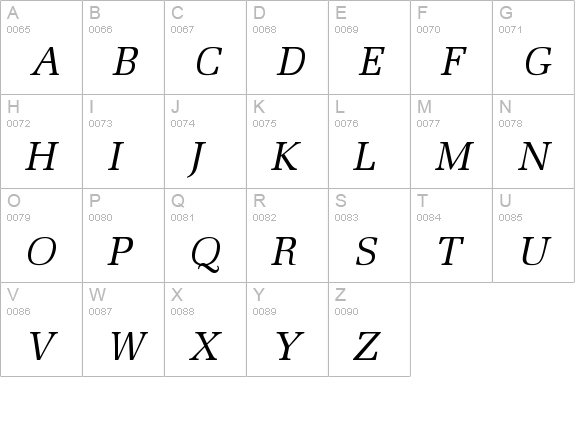
Melior Italic Font Details
Melior Italic is a distinctive, italic variant in the Melior typeface family \xE2\x80\x94 well suited to design and typography projects.
Melior Italic font exudes elegance and sophistication with its sleek, slanted design. The graceful curves and precise angles of this typeface make it a perfect choice for adding a touch of sophistication to any project. Whether you're designing a wedding invitation, creating a stylish logo, or crafting a professional document, Melior Italic font is sure to elevate your work to the next level. What's even better is that Melior Italic font is completely free to download at FontsMarket.com. This means you can enhance your designs with this stunning typeface without any cost, making it a valuable addition to your font collection. Don't miss out on the opportunity to download Melior Italic font for free and start creating beautiful, polished designs today.